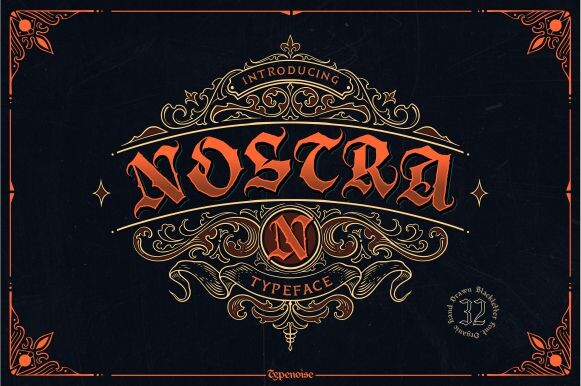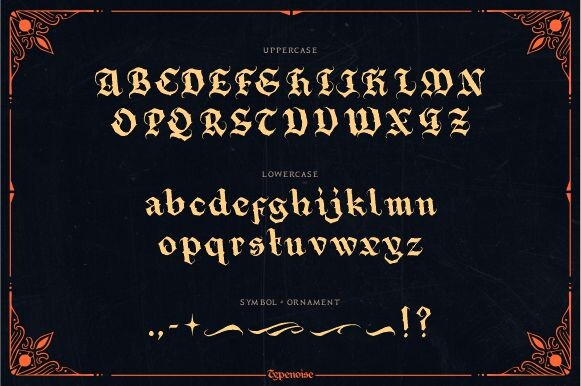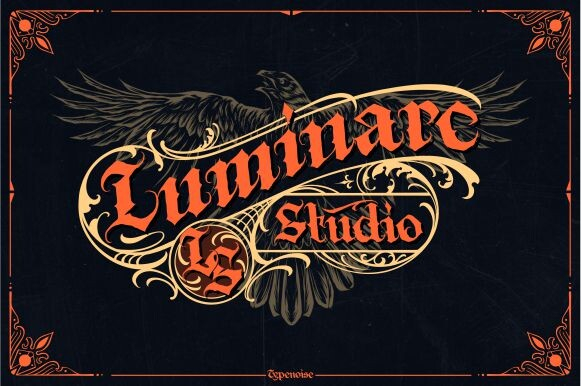
Nostra Font
About Nostra Font
Presenting Nostra Vintage Gothic, a captivating Blackletter Display Font designed to elevate your message with timeless elegance. Infuse your projects with words of intrinsic value using this unique typeface, which blends style and creativity seamlessly. Let Nostra Vintage Gothic add a touch of sophistication and allure to your designs, ensuring that your message stands out with unparalleled visual impact.